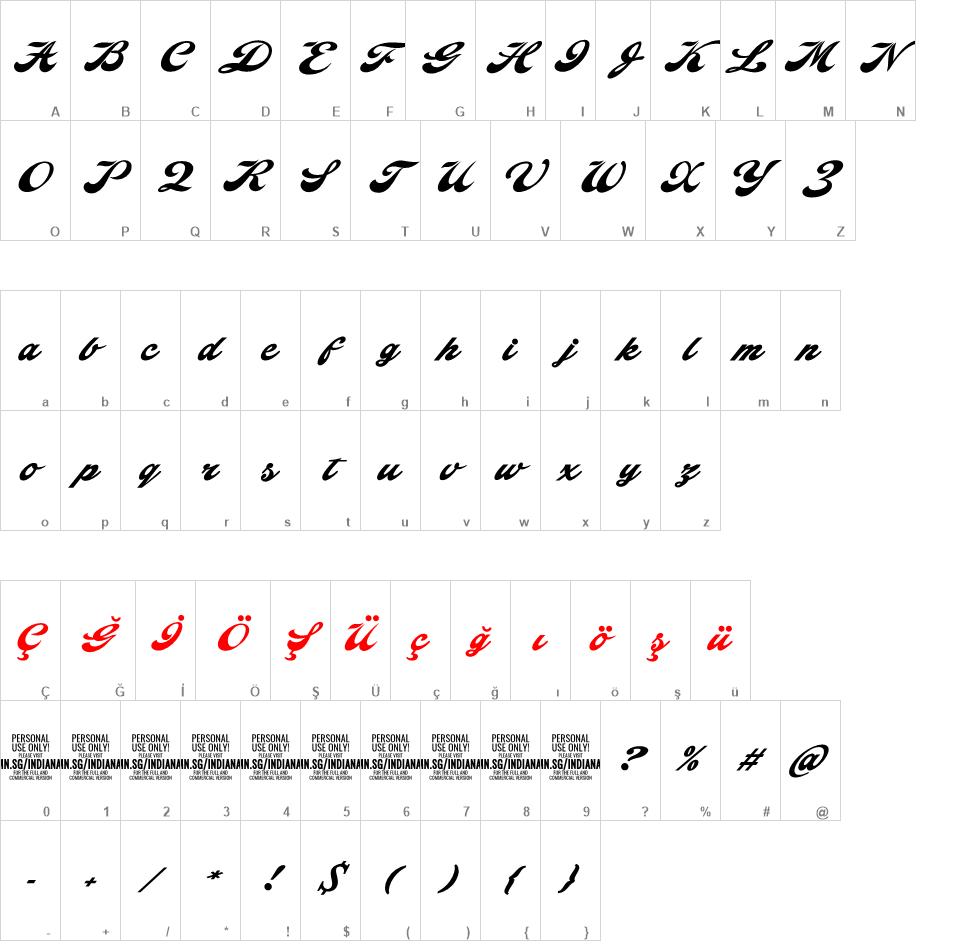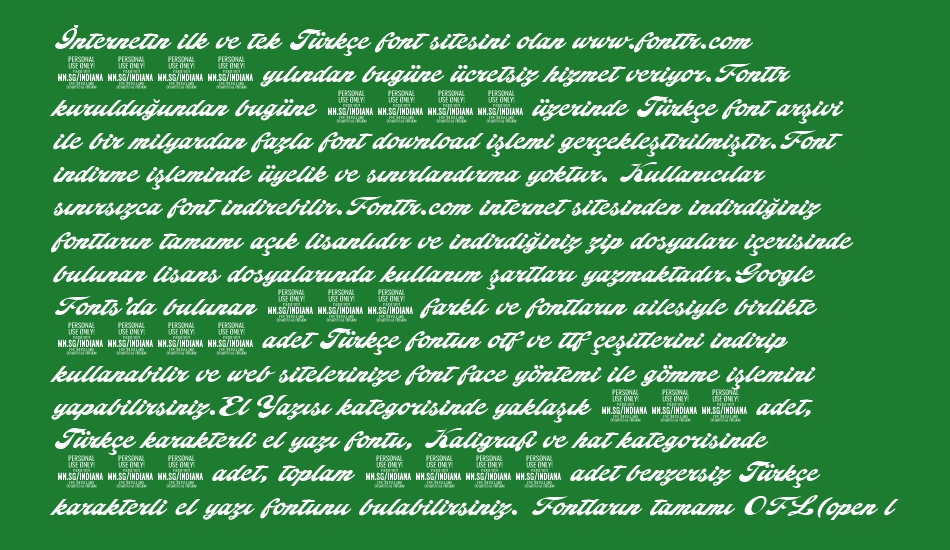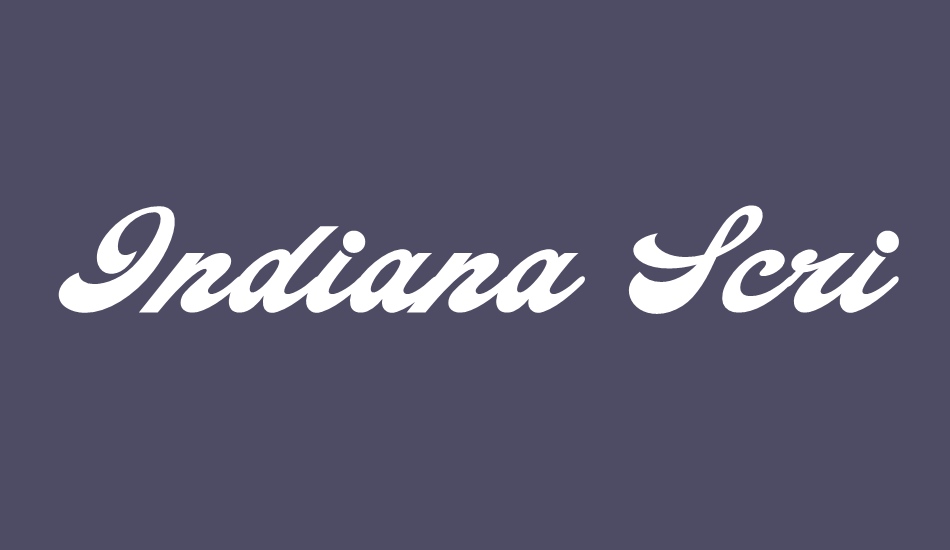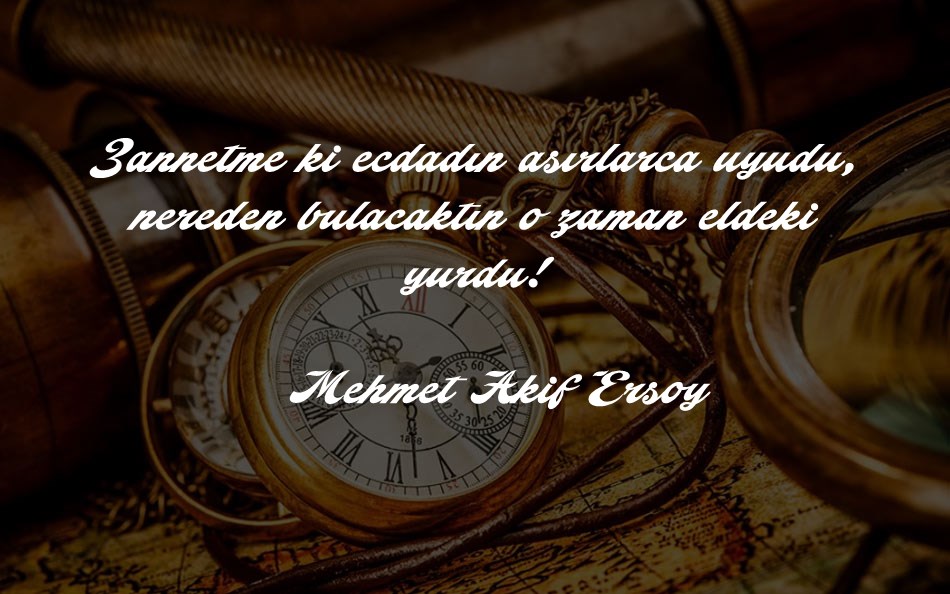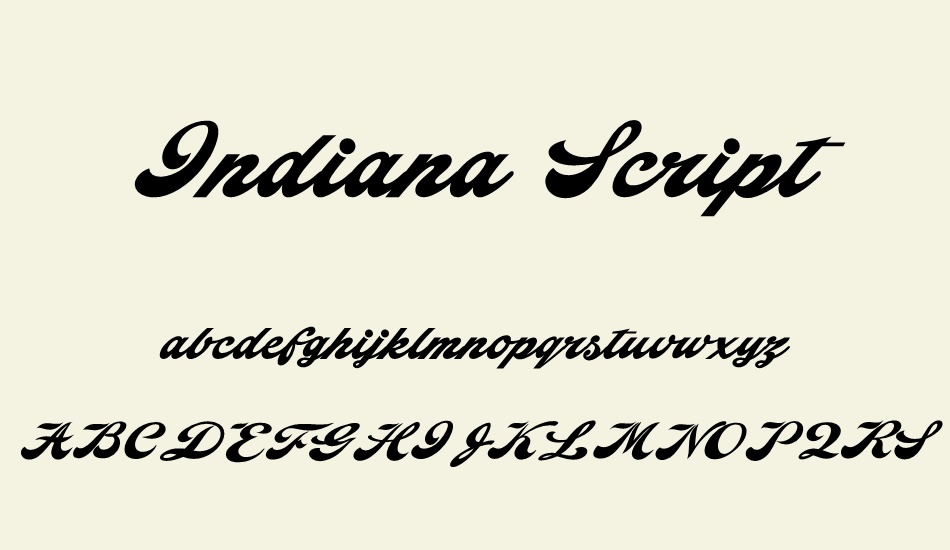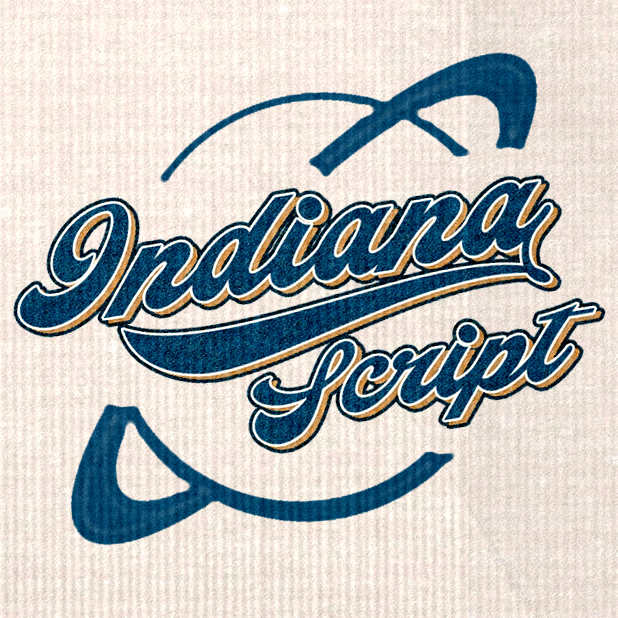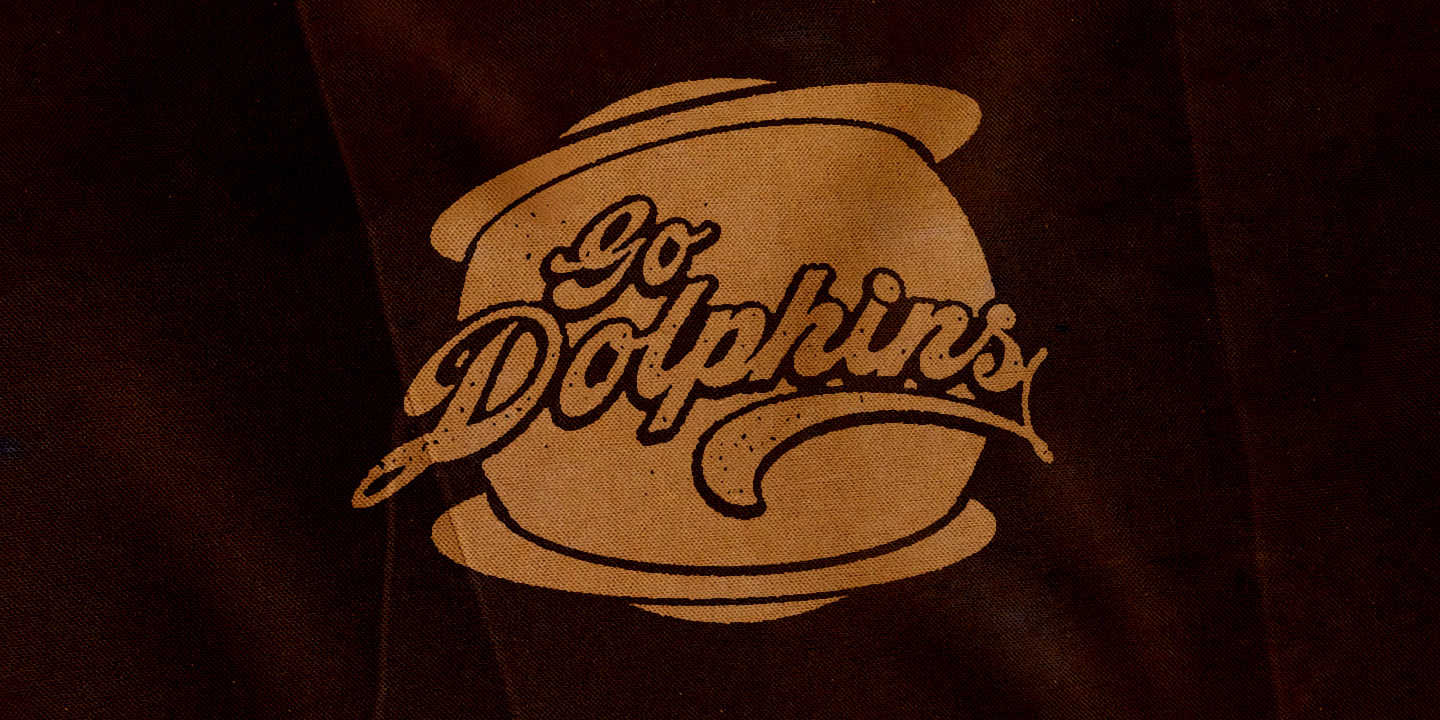
Indiana Script font
In a classic logotype style, Indiana Script is a sharp and steady typeface created by M?ns Greb?ck.
With its bold brush strokes and vintage tilt, this typeface works great in old-style logos and headlines.
It contains ligatures and alternate characters, and supports a very wide range of languages.
Write _ after a word to get a swash.
Example: Indiana_
With ligatures activated, write _ and a number for more swashes.
Example: Visual_2 Music_6